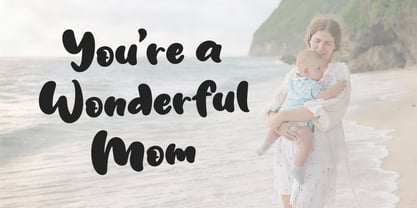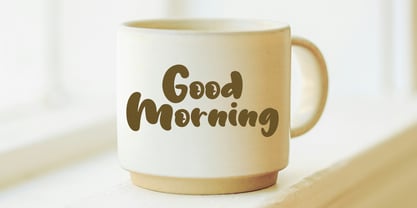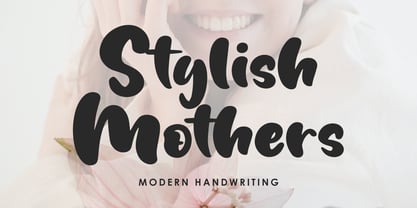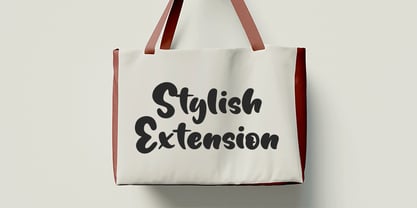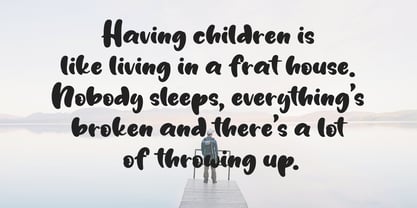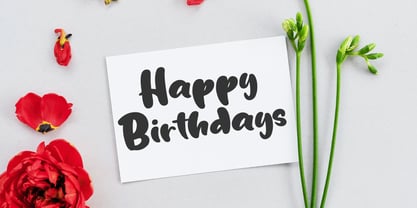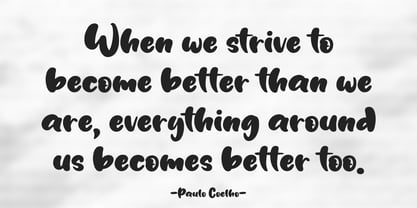
Stylish Mothers
by Mega Type
The Stylish Mothers Font Family was designed by M Akmal and published by Mega Type. Stylish Mothers contains 1 styles.
Stylish Mothers is a bold and modern handwritten script that combines playfulness with elegance. Its thick, rounded strokes exude warmth and friendliness, making it perfect for themes centered around family, love, or lifestyle.
This font effectively conveys a sense of creativity and affection, making it perfect for branding, social media graphics, greeting cards, and product packaging aimed at a female or family-oriented audience.